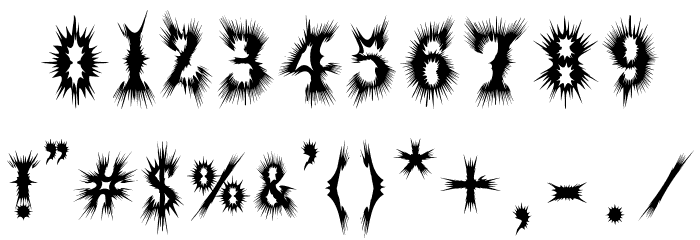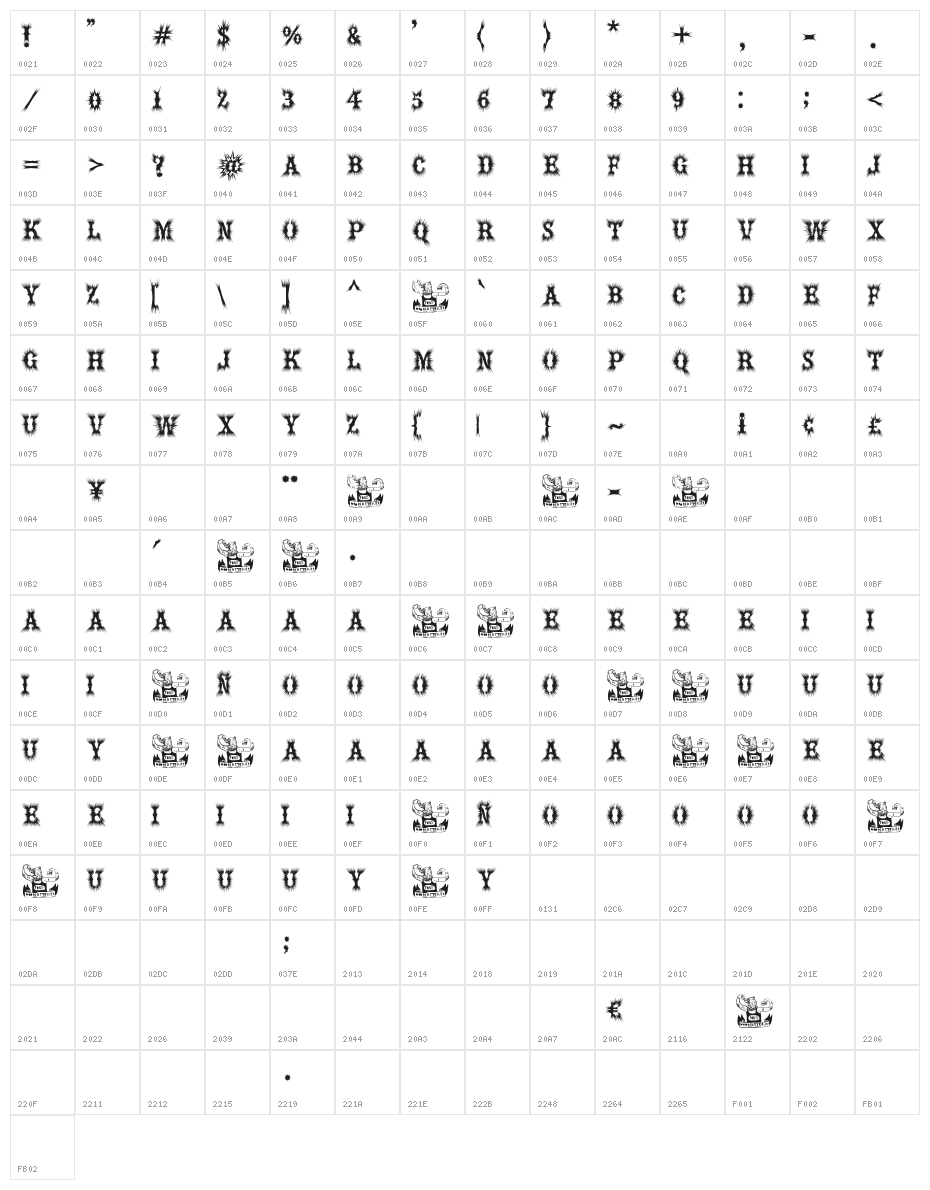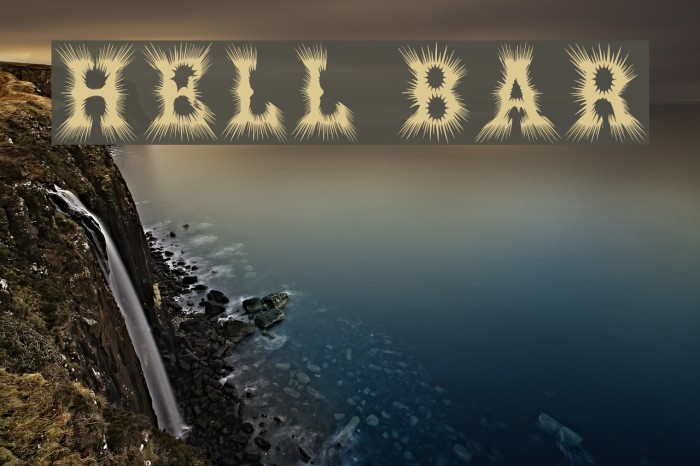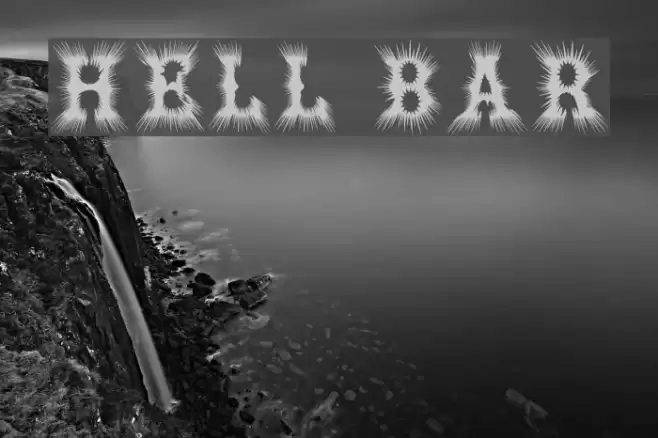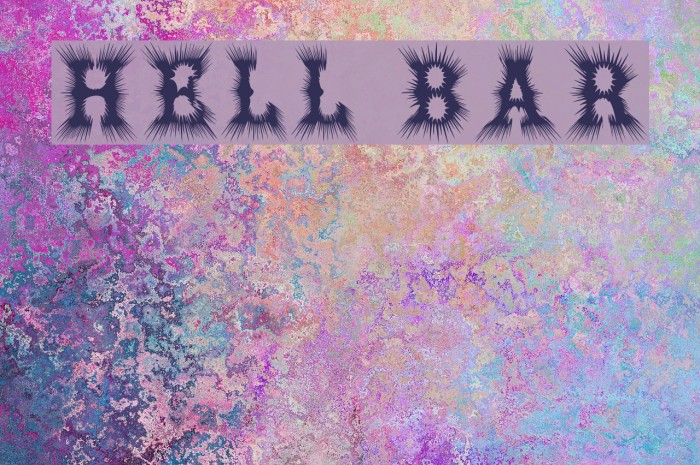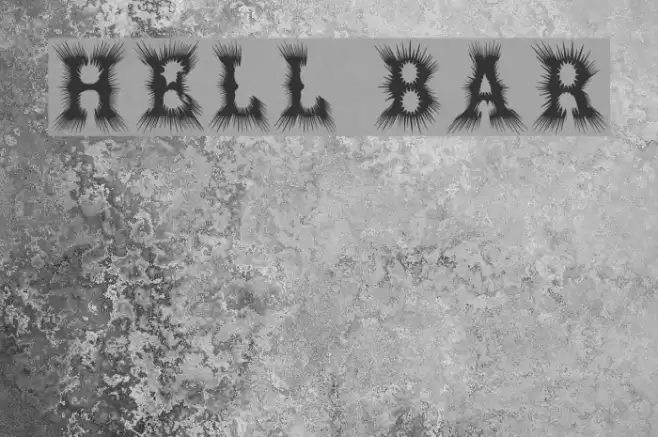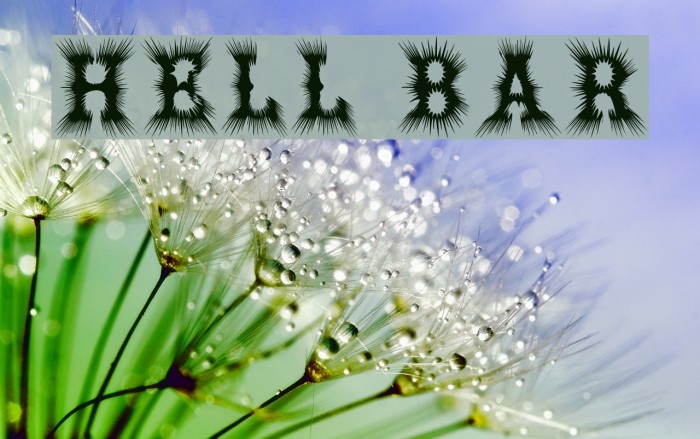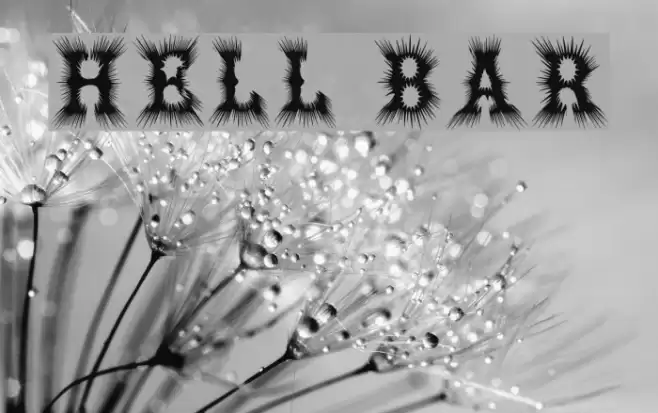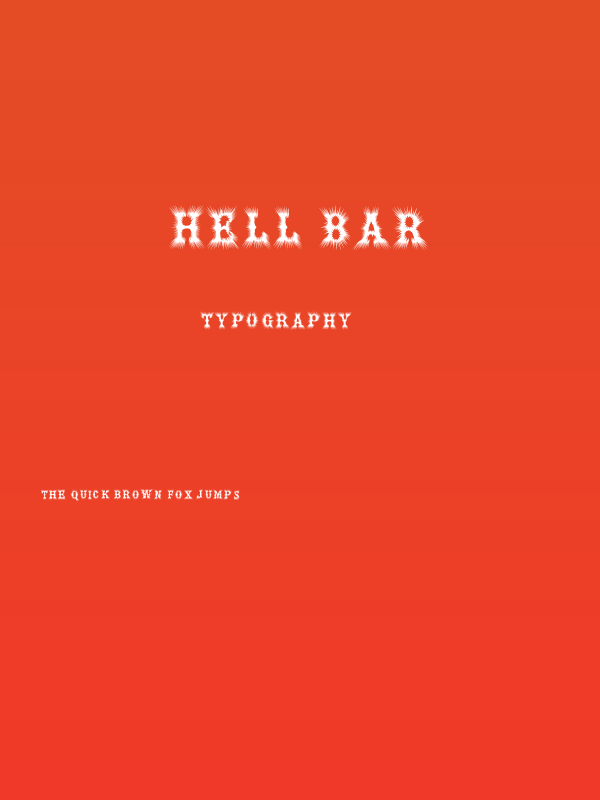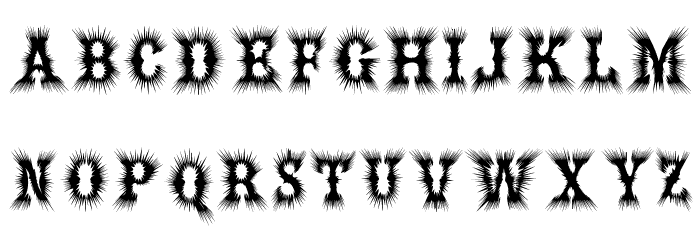
Hell Bar Font
Hell Bar Description
This font features a bold, spiky design that gives each character a dynamic and aggressive appearance. The sharp, jagged edges create a sense of movement and intensity, making it stand out dramatically. The characters are well-defined, with a consistent pattern of spikes radiating outward, adding a unique texture and depth. This font is highly decorative, capturing attention with its unconventional style. It is ideal for projects that require a bold statement or a sense of edginess. The font maintains legibility despite its intricate design, making it suitable for various creative applications.
| Proposed Projects | Ideal for album covers, posters, Halloween-themed designs, or any project needing a bold, edgy look. |